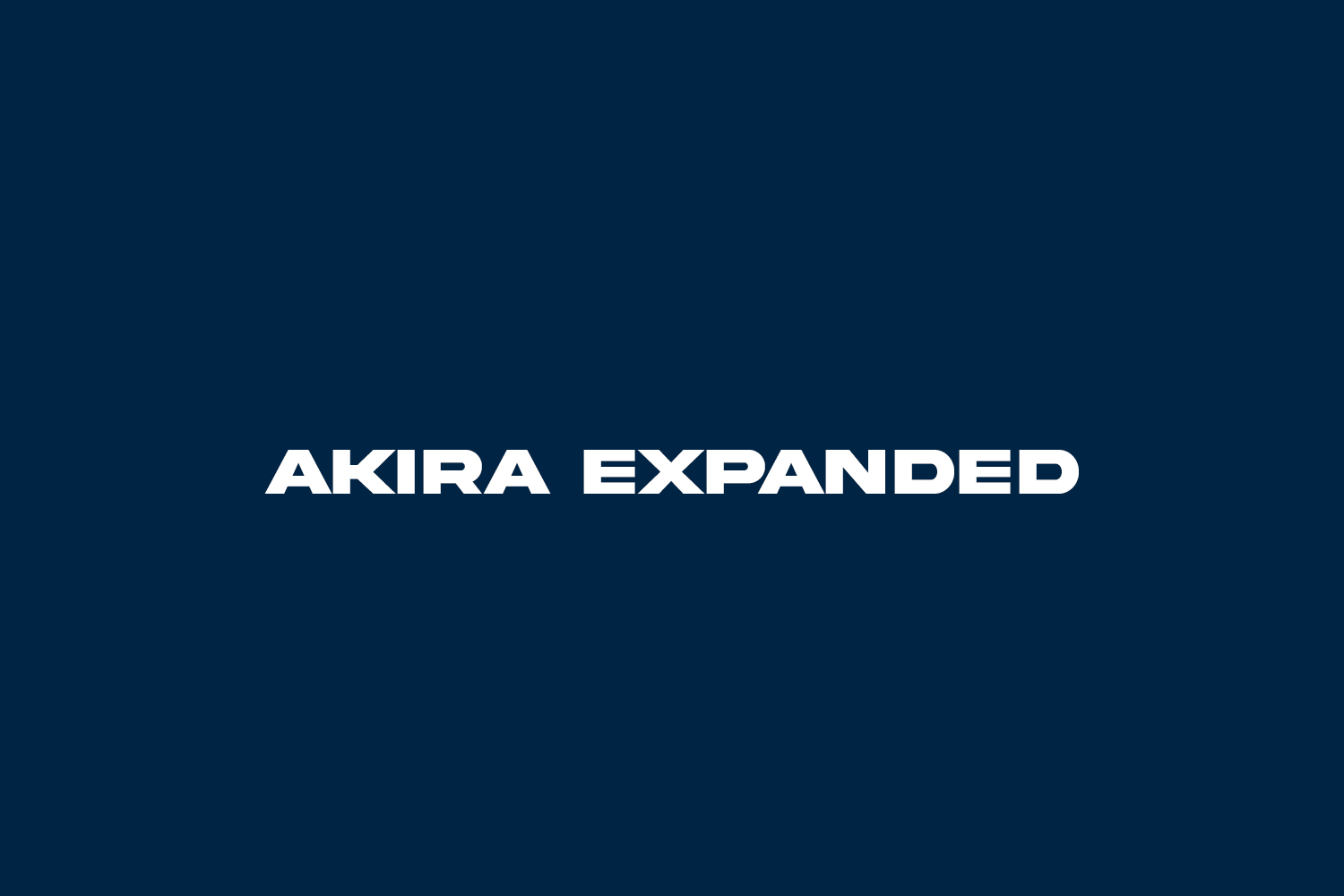
Akira Expanded Font
Akira Expanded Font - It features an incredibly classic style, while. Web akira expanded font is geometric font family. Made for text display purposes, akira expanded brings a modern and strong impression to your design. With a bold style, make this font suitable as the main text /. With a bold style, make this font. With a feel modern, advanced, technology, luxury, and clean. Web akira expanded font. Made for text display purposes, akira expanded brings a modern and strong impression to your design. Web made for text display purposes, akira expanded brings a modern and strong impression to your design.
With a feel modern, advanced, technology, luxury, and clean. Made for text display purposes, akira expanded brings a modern and strong impression to your design. It features an incredibly classic style, while. With a bold style, make this font suitable as the main text /. Made for text display purposes, akira expanded brings a modern and strong impression to your design. Web made for text display purposes, akira expanded brings a modern and strong impression to your design. Web akira expanded font. With a bold style, make this font. Web akira expanded font is geometric font family.
With a bold style, make this font. With a bold style, make this font suitable as the main text /. With a feel modern, advanced, technology, luxury, and clean. Web akira expanded font is geometric font family. Made for text display purposes, akira expanded brings a modern and strong impression to your design. It features an incredibly classic style, while. Web made for text display purposes, akira expanded brings a modern and strong impression to your design. Web akira expanded font. Made for text display purposes, akira expanded brings a modern and strong impression to your design. With a bold style, make this font.
Made for text display purposes, akira expanded brings a modern and strong impression to your design. Web made for text display purposes, akira expanded brings a modern and strong impression to your design. It features an incredibly classic style, while. Made for text display purposes, akira expanded brings a modern and strong impression to your design. With a bold style,.
Web akira expanded font. Web akira expanded font is geometric font family. With a bold style, make this font suitable as the main text /. It features an incredibly classic style, while. With a bold style, make this font.
Akira Expanded Font
Made for text display purposes, akira expanded brings a modern and strong impression to your design. With a feel modern, advanced, technology, luxury, and clean. Web akira expanded font is geometric font family. With a bold style, make this font. Made for text display purposes, akira expanded brings a modern and strong impression to your design.
With a bold style, make this font. Web made for text display purposes, akira expanded brings a modern and strong impression to your design. Web akira expanded font is geometric font family. Web akira expanded font.
Web akira expanded font is geometric font family. It features an incredibly classic style, while. Made for text display purposes, akira expanded brings a modern and strong impression to your design. With a bold style, make this font suitable as the main text /. With a bold style, make this font.
It features an incredibly classic style, while. Made for text display purposes, akira expanded brings a modern and strong impression to your design. With a feel modern, advanced, technology, luxury, and clean. Web akira expanded font is geometric font family. Web akira expanded font.
Web made for text display purposes, akira expanded brings a modern and strong impression to your design. Web akira expanded font is geometric font family. With a feel modern, advanced, technology, luxury, and clean. Web akira expanded font. With a bold style, make this font.
Web akira expanded font is geometric font family. With a feel modern, advanced, technology, luxury, and clean. With a bold style, make this font. It features an incredibly classic style, while. With a bold style, make this font.
With a bold style, make this font suitable as the main text /. Web akira expanded font is geometric font family. With a feel modern, advanced, technology, luxury, and clean. With a bold style, make this font. Made for text display purposes, akira expanded brings a modern and strong impression to your design.
Web akira expanded font is geometric font family. With a bold style, make this font. Web made for text display purposes, akira expanded brings a modern and strong impression to your design. Web akira expanded font. Made for text display purposes, akira expanded brings a modern and strong impression to your design.
Web Made For Text Display Purposes, Akira Expanded Brings A Modern And Strong Impression To Your Design.
With a feel modern, advanced, technology, luxury, and clean. Web akira expanded font is geometric font family. With a bold style, make this font. With a bold style, make this font.
Made For Text Display Purposes, Akira Expanded Brings A Modern And Strong Impression To Your Design.
Web akira expanded font. It features an incredibly classic style, while. Made for text display purposes, akira expanded brings a modern and strong impression to your design. With a bold style, make this font suitable as the main text /.